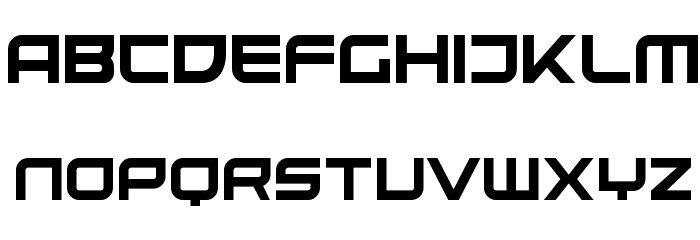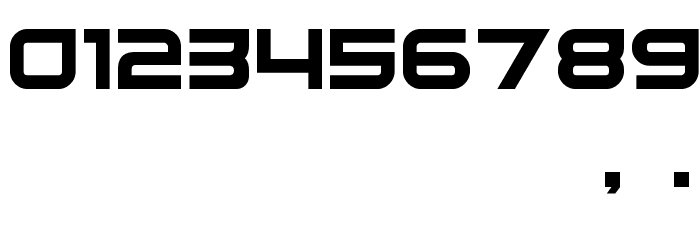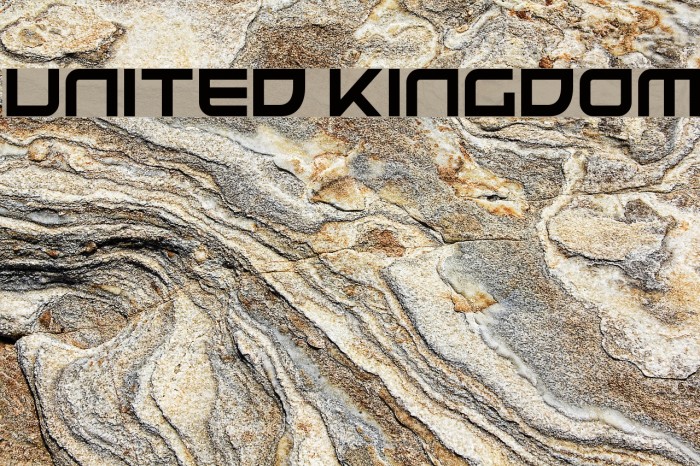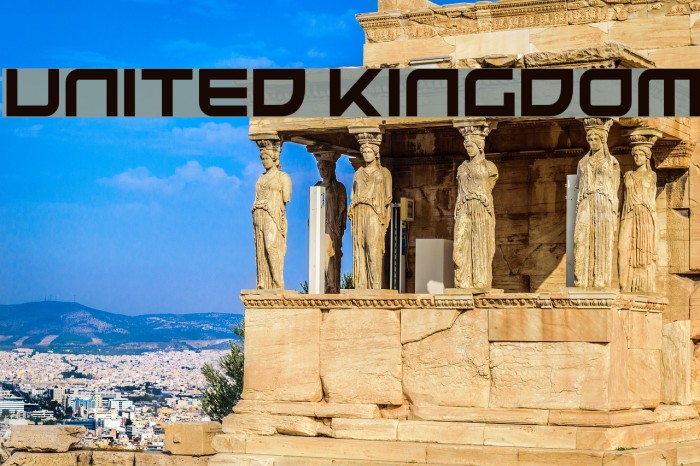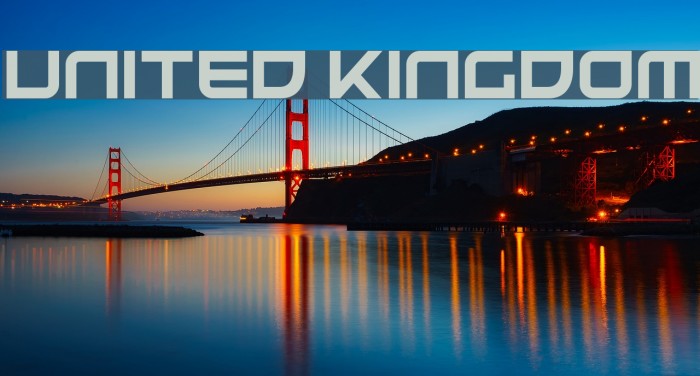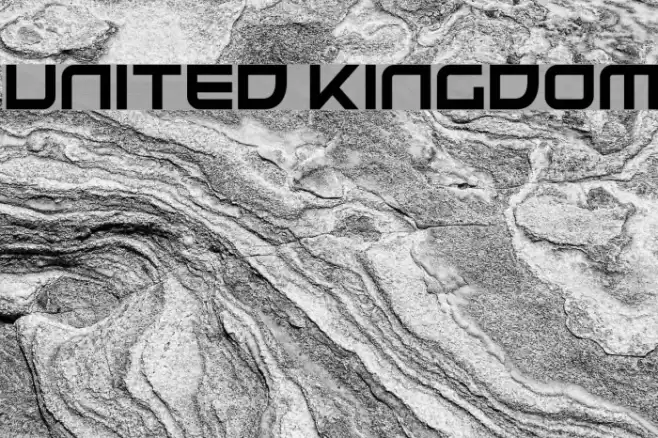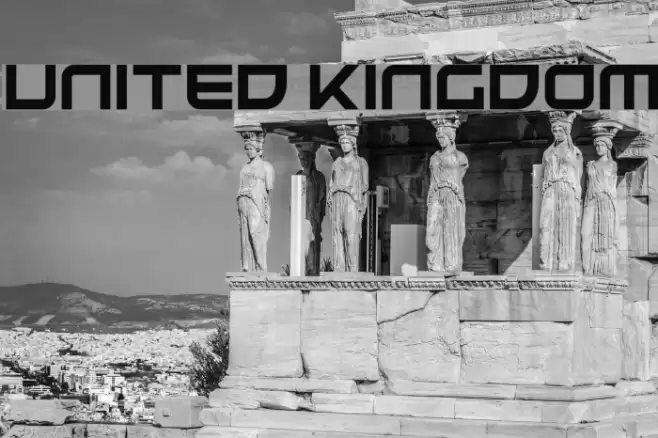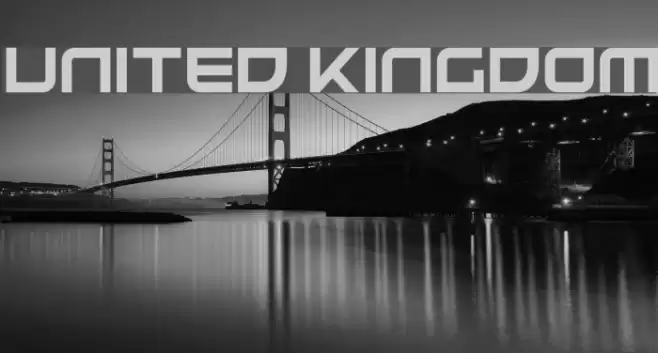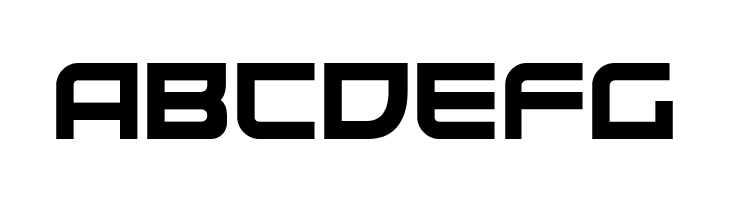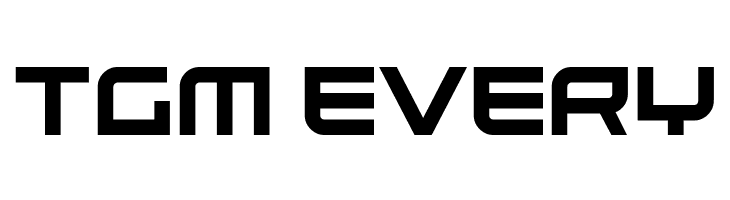
United Kingdom Font
This font features a modern, geometric design with a strong, futuristic appeal. The characters are constructed with bold, straight lines and sharp angles, giving it a technical and structured appearance. The uppercase letters are uniform in height, while the lowercase letters maintain a consistent style that complements the uppercase set. The numerals are equally bold and geometric, ensuring readability and visual impact. The special characters are designed to match the overall aesthetic, maintaining the same angular and bold characteristics. This font is ideal for projects that require a contemporary and tech-savvy look.
A modern, geometric font with bold, angular lines and a futuristic style.
- Proposed Projects: Ideal for technology branding, video game titles, sci-fi movie posters, and modern digital interfaces.
- Use Case: Headlines, Logos, Digital Interfaces